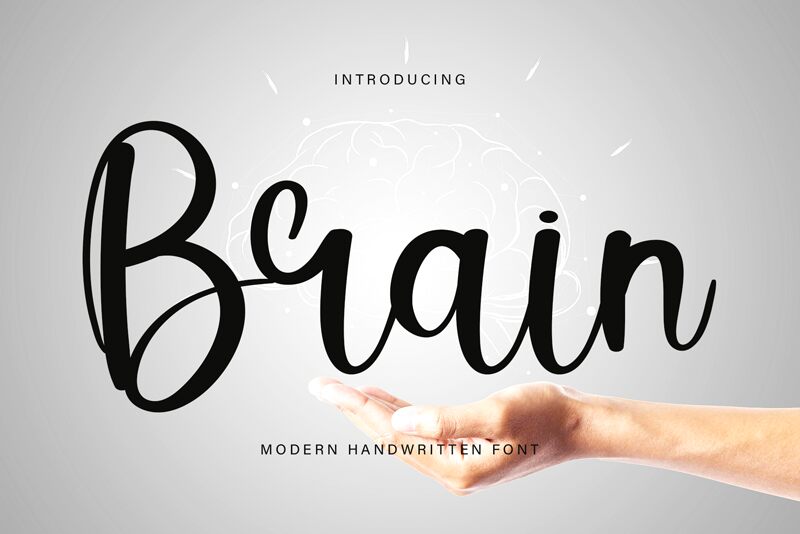
Brain
Brain, a semi-light handwritten font crafted by Etik Fatimah, embodies a unique blend of personal touch and elegant simplicity. Its flowing letters and subtle variations in stroke width evoke the charm of traditional handwriting while maintaining excellent legibility. Designed to add an authentic human element to digital communication, Brain's aesthetic appeal lies in its understated style that resonates with warmth and approachability.
The font's semi-light weight gives it a delicate and airy quality, making it an ideal choice for designs that require a soft yet impactful visual statement. Whether used for invitations, branding, or editorial design, Brain offers versatility and personality. Its handwritten style lends itself to projects that benefit from an intimate and bespoke feel.
Incorporating Brain into creative work promises to infuse your projects with a sense of individuality that stands out in today's digital age while ensuring your message is delivered with clarity and grace.